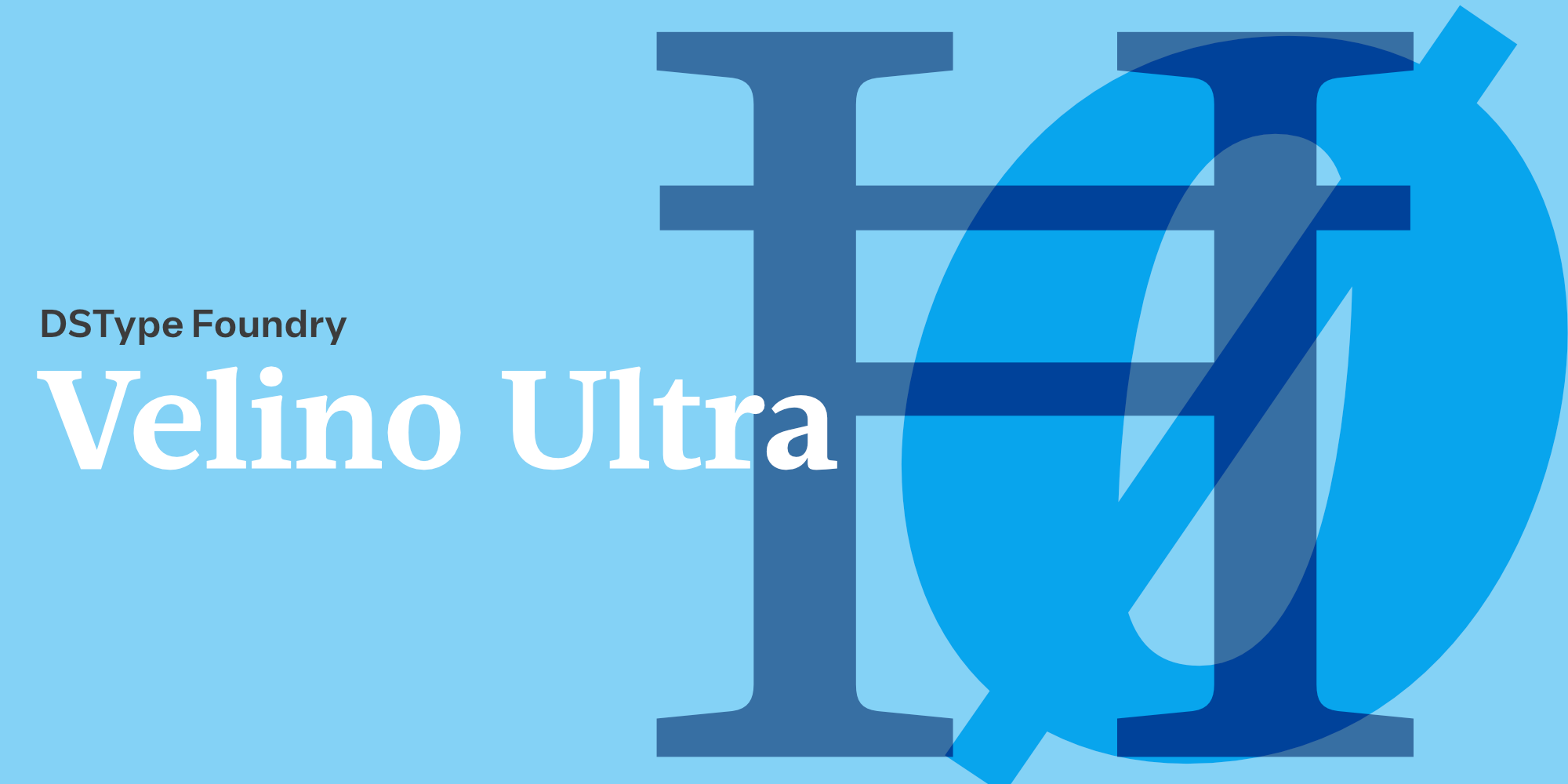
Velino Ultra Font is perfect for high-impact and luxury applications including premium fashion campaigns, exclusive brand advertising, luxury automotive marketing, high-end cosmetics packaging, prestigious event invitations, upscale real estate materials, elite hospitality branding, and ultra-premium product launches. This commanding typeface brings maximum visual impact and uncompromising luxury to projects requiring the ultimate in typographic presence and exclusive appeal.
What makes Velino Ultra Font exciting is its extraordinary weight and commanding presence that dominates any design space with absolute authority. The font features ultra-bold letterforms with dramatic proportions that create instant recognition and undeniable impact. Its powerful character design incorporates maximum contrast and bold geometry that commands attention while maintaining sophisticated elegance, making it perfect for luxury brands that need to make unforgettable first impressions.
The Velino Ultra Font family includes extreme weight variations from bold to ultra-black, each maintaining consistent proportional relationships and luxury appeal. The comprehensive family encompasses condensed and extended styles designed for maximum flexibility in high-impact applications. Special features include luxury-focused ligatures and premium symbols that enhance the font's ability to communicate exclusivity and sophisticated luxury branding.
Luxury brands and premium agencies consistently choose Velino Ultra Font Free Download for projects requiring maximum typographic impact and exclusive luxury appeal. Whether developing ultra-premium campaigns, creating luxury product packaging, or designing exclusive event materials, this font delivers unmatched presence and luxury credibility. Its unique combination of extreme visual weight and refined sophistication makes it an indispensable tool for luxury professionals working on high-end projects, exclusive brand launches, and premium marketing initiatives that demand typography reflecting the highest levels of luxury, exclusivity, and commanding market presence.